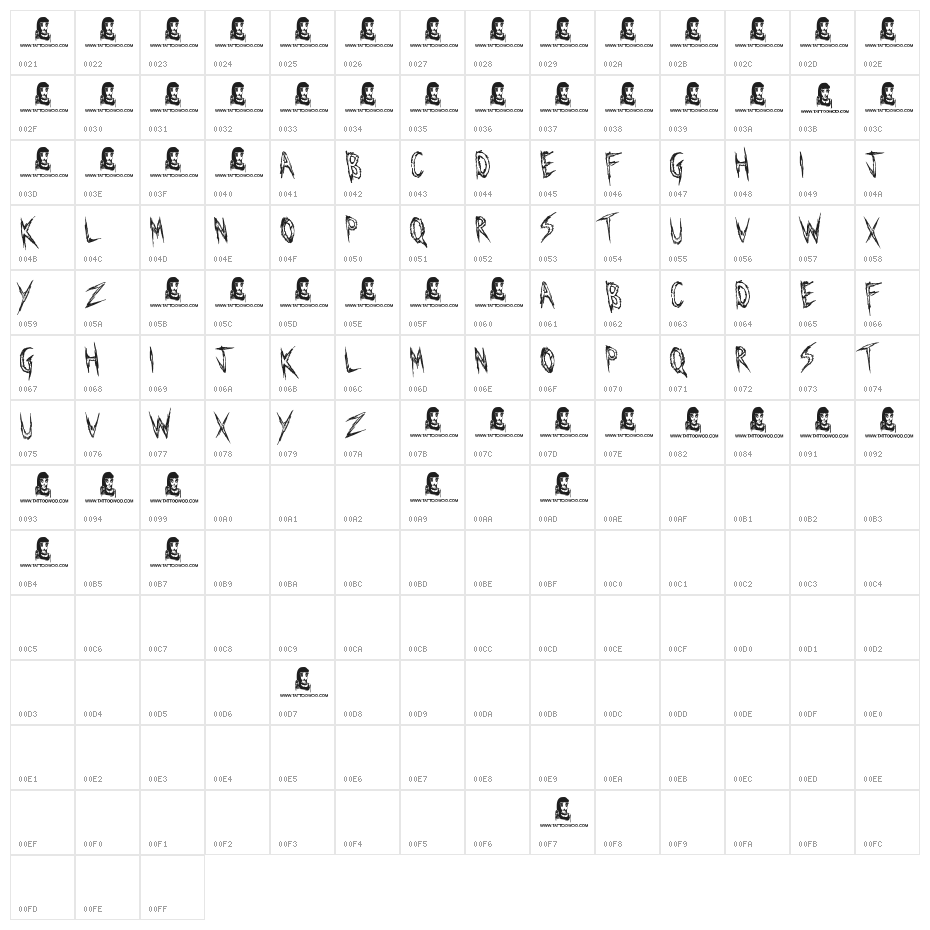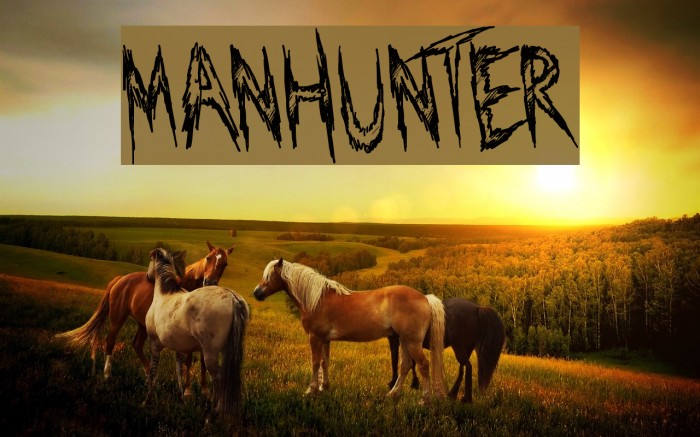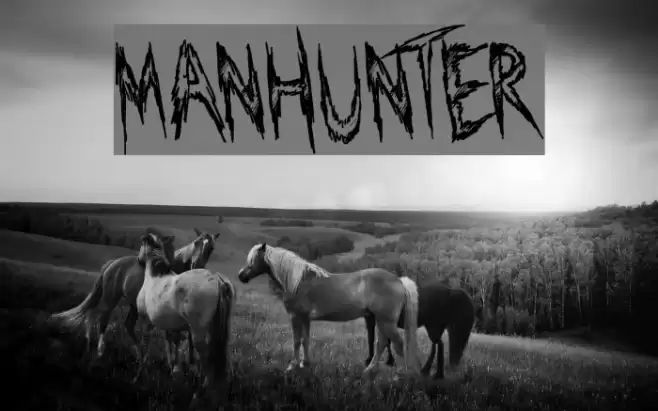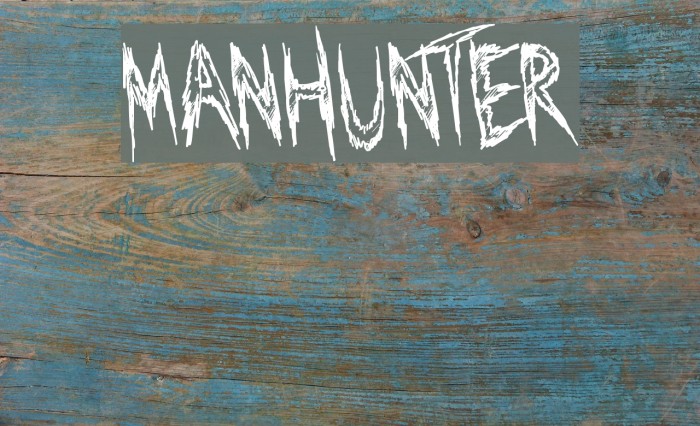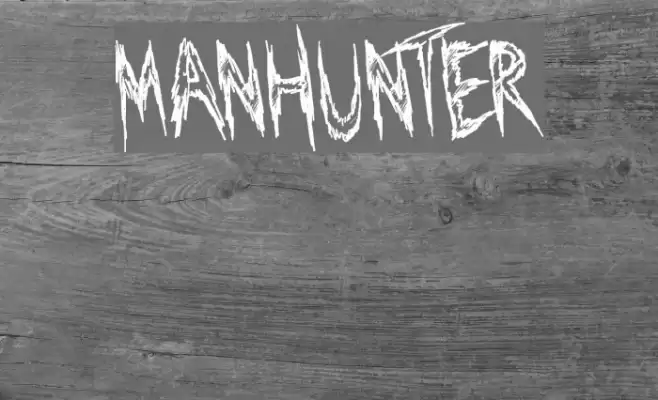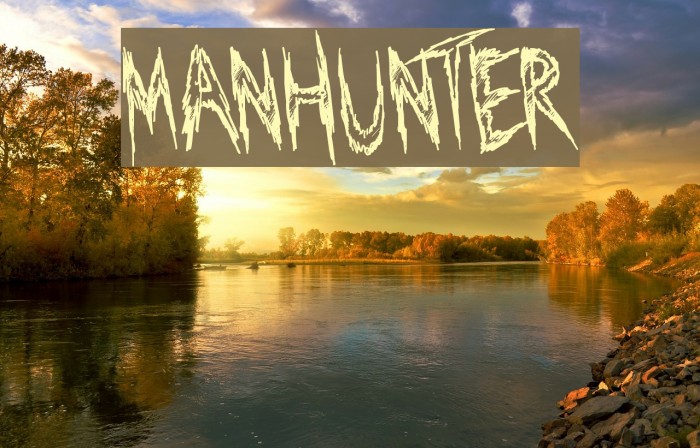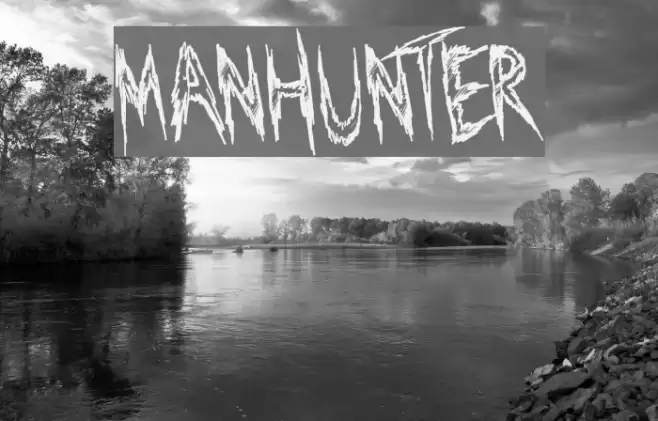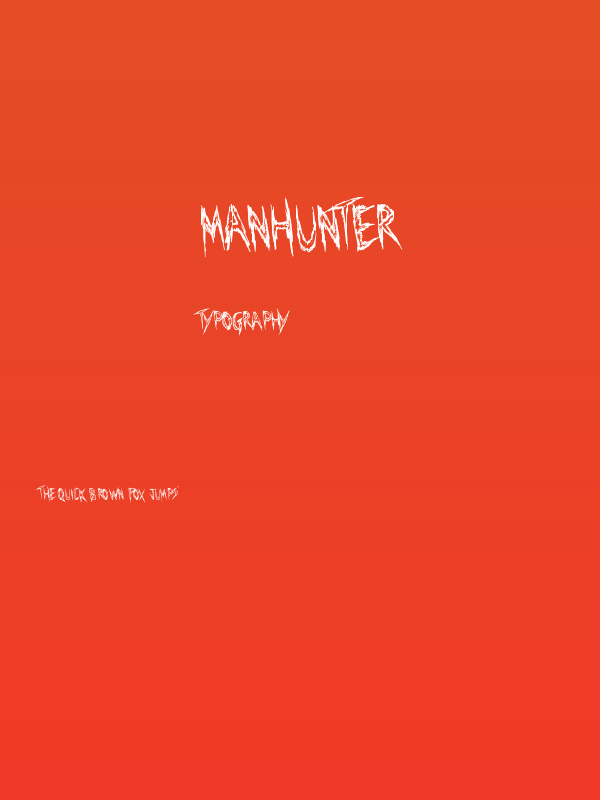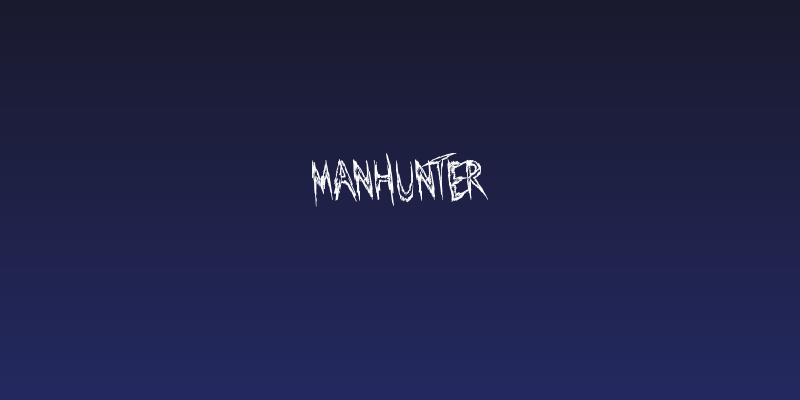
Manhunter Font
Manhunter Description
This font features a rugged, distressed style with jagged edges and an aggressive appearance. The letters are bold and dynamic, giving off a sense of intensity and raw energy. The strokes are uneven, creating a chaotic yet visually striking effect. This font is perfect for projects that require a bold statement or an edgy, rebellious look. Its unique design makes it stand out, capturing attention with its unconventional style.
| Use Case | Logos, Posters, Album covers |
| Proposed Projects | Ideal for horror movie posters, rock band logos, edgy apparel designs, or any project needing a bold, rebellious aesthetic. |